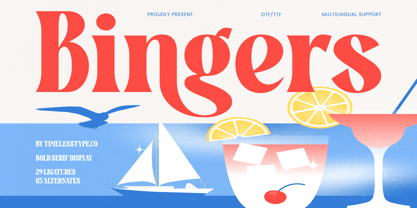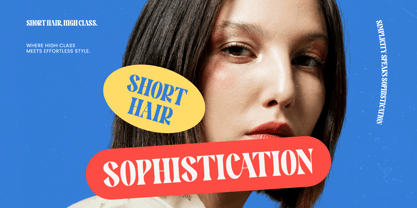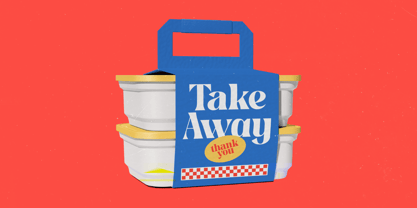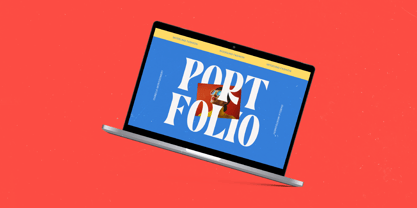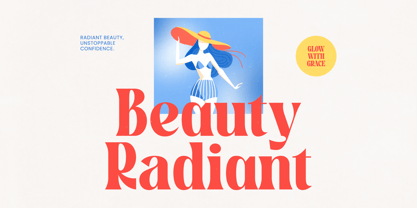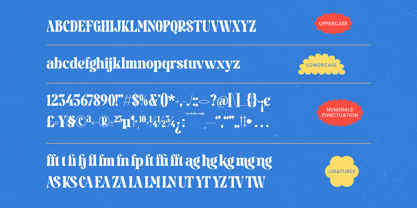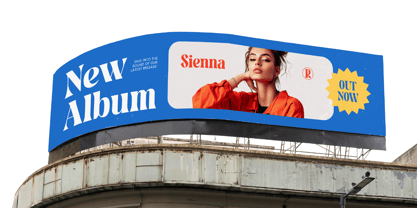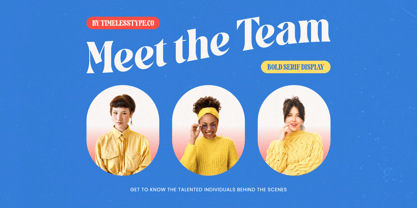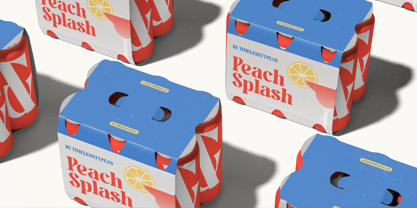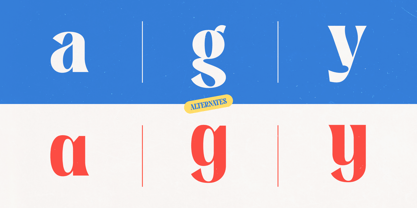
Bingers
por Timelesstype Studio
La familia tipográfica Bingers fue diseñada por Heru Utama Putra y publicada por Timelesstype Studio. Bingers contiene 2 estilos y opciones de paquete familiar. Más información sobre esta familia
Bingers – Bold Serif Display. This typeface masterfully combines high-contrast strokes with elegant serifs to deliver a modern vintage aesthetic that commands immediate attention. Its robust letterforms are designed for maximum visual impact, making it an essential tool for designers seeking to balance sophisticated charm with bold, contemporary flair.
Unlock unparalleled creative flexibility with the rich OpenType features integrated into Bingers – Bold Serif Display. Boasting 29 unique ligatures and special alternates, this font allows for a highly customized look that mimics professional hand-lettering. Whether you are crafting a distinctive logo or an engaging headline, Bingers – Bold Serif Display provides the typographic character necessary to make your message stand out in a crowded marketplace.